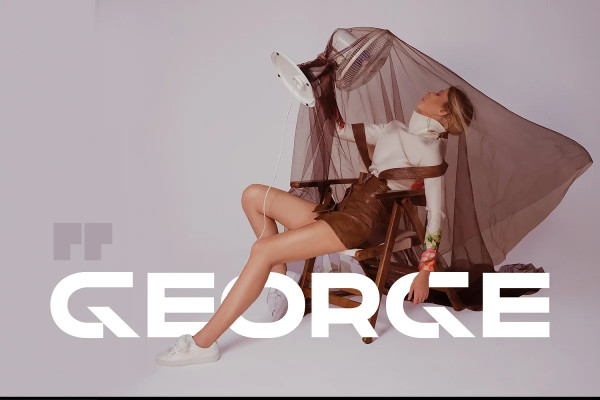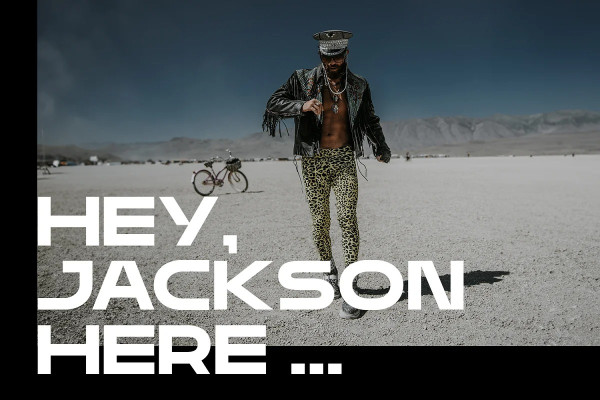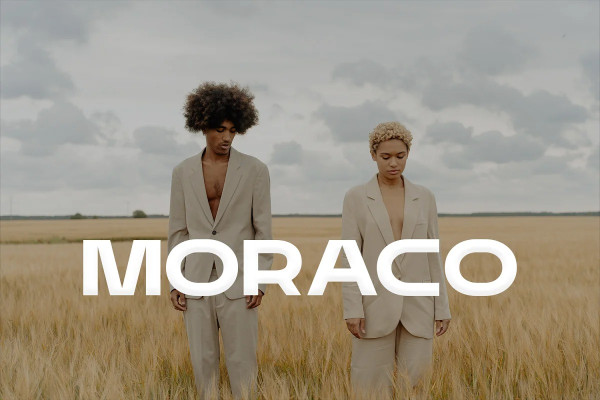
Moraco Font
Moraco Font, new generation Typeface created for building brand identity. Moraco Typeface created with the vision of to attract the audience to your brand. The finest details of this typeface are methodically and mathematically created. Moraco is created with all the tasks of a corporate font and also for the usage in a variety of projects, including branding, logos, titles, headlines, posters, screens, display, digital ads and everything else.